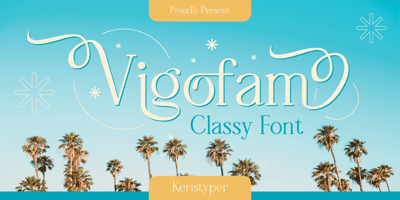
Vigofam Font Family was designed by Tezar Tantular and published by Keristyper Studio. Vigofam contains 1 styles and family package options. Vigofam serif typeface is an elegantly themed font that has a dynamic serif style. This font is good for logo design, Social media, Movie Titles, Books Titles, short text even long text letters, and good for your secondary text font with sans or serif.**Featured:*** Standard Uppercase & Lowercase* Numeral & Punctuation* Multilingual : ä ö ü Ä Ö Ü ß ¿ ¡* Alternate & Ligature* PUA encodedWe recommend programs that support the OpenType feature and the Glyphs panel such as Adobe applications or Corel Draw. so you can use all the variations of the glyphs.Hope you enjoy our fonts!